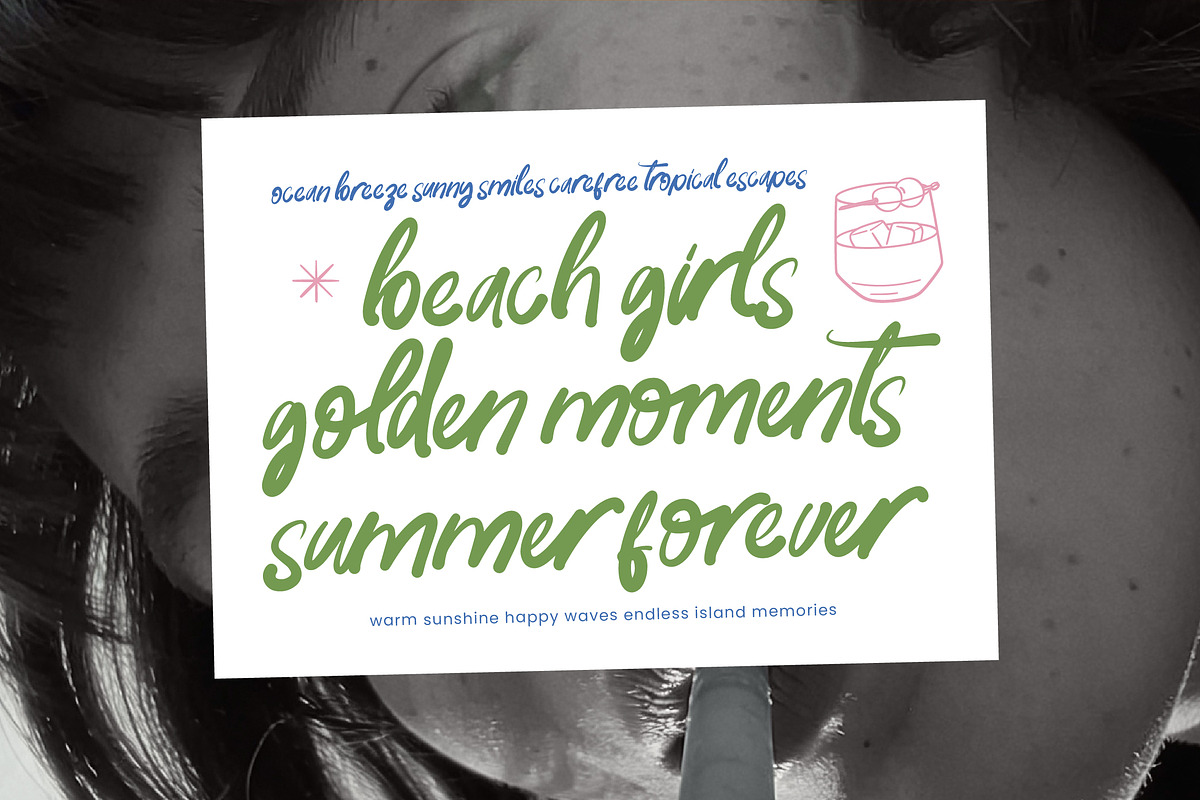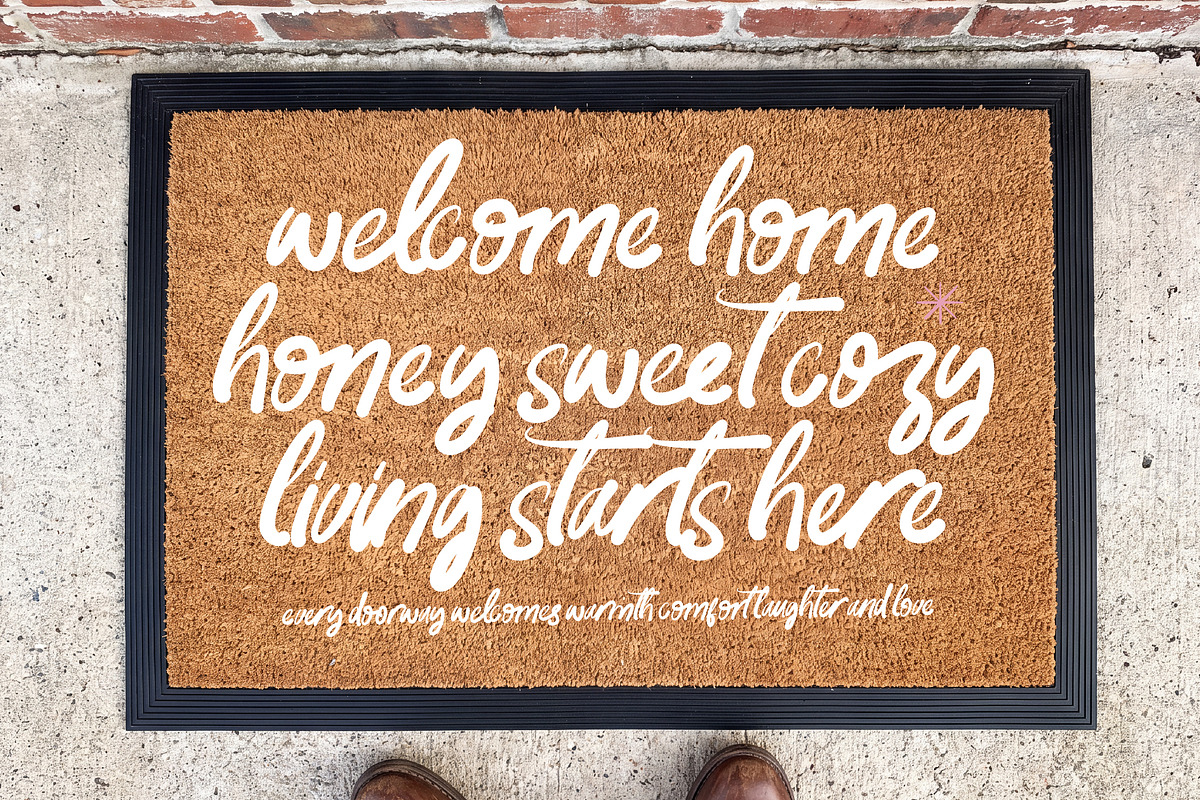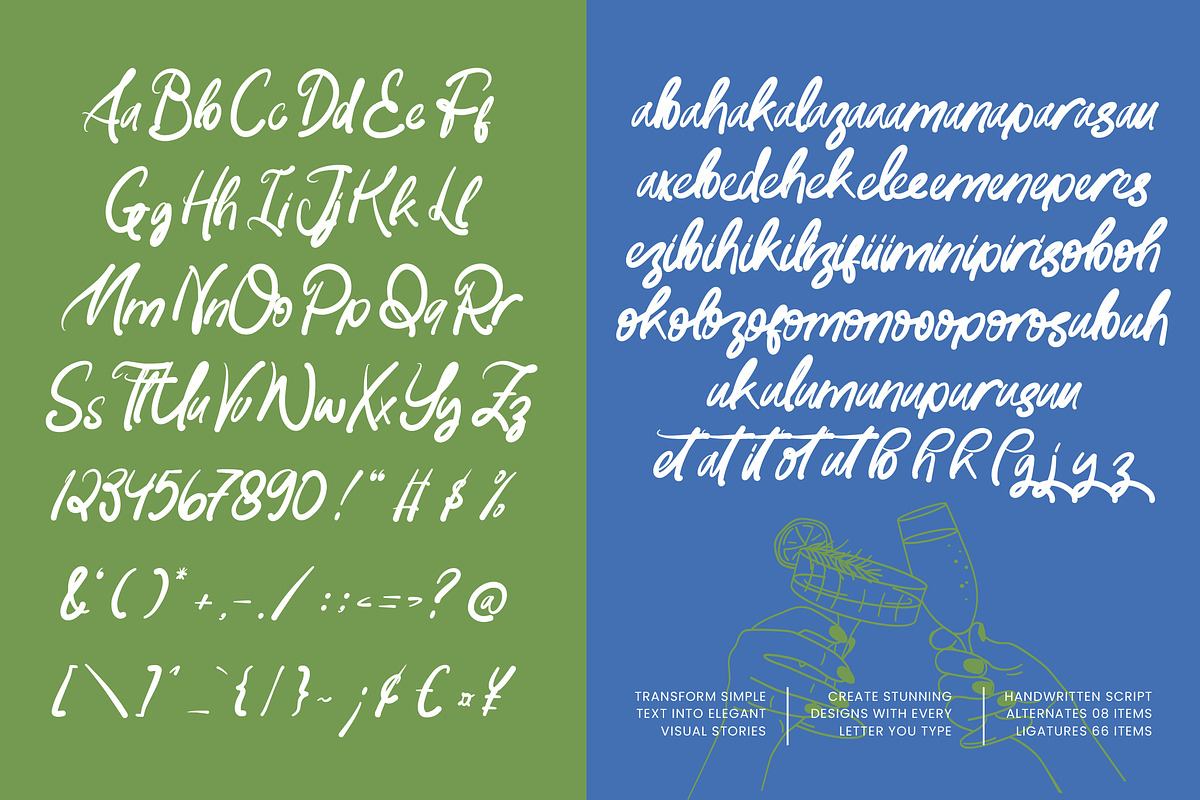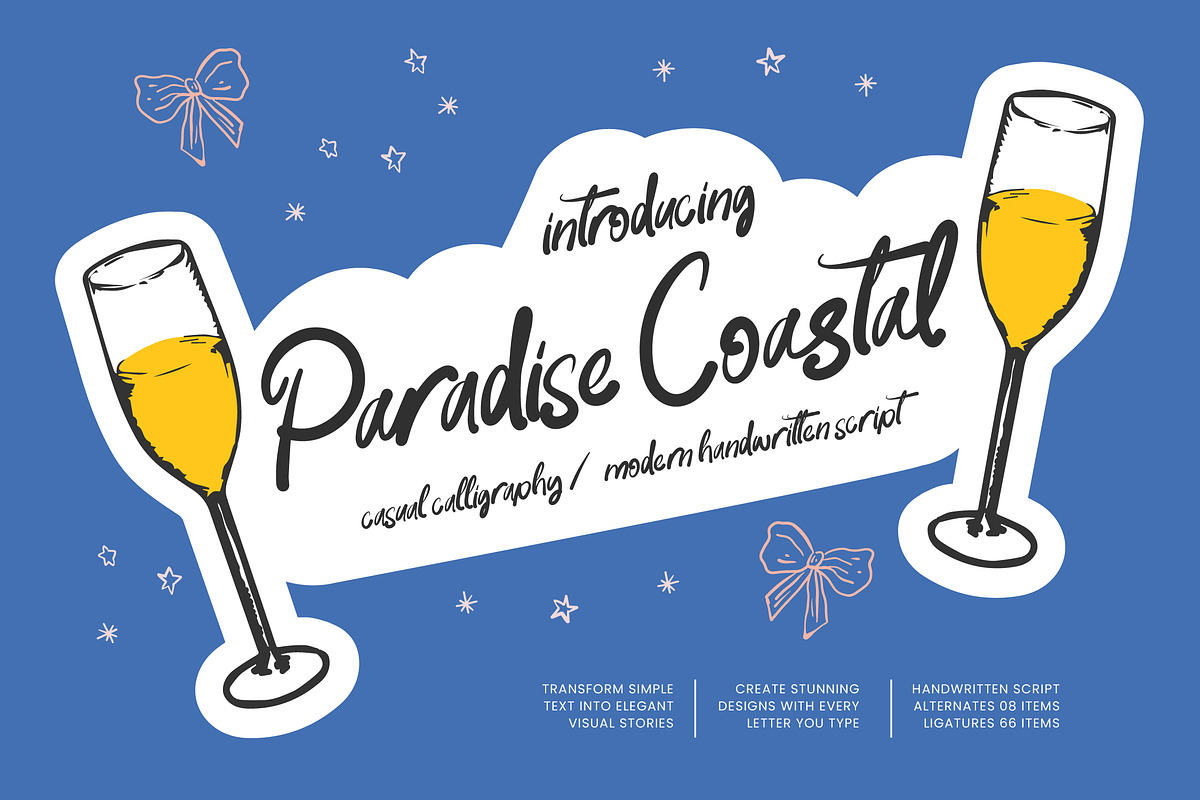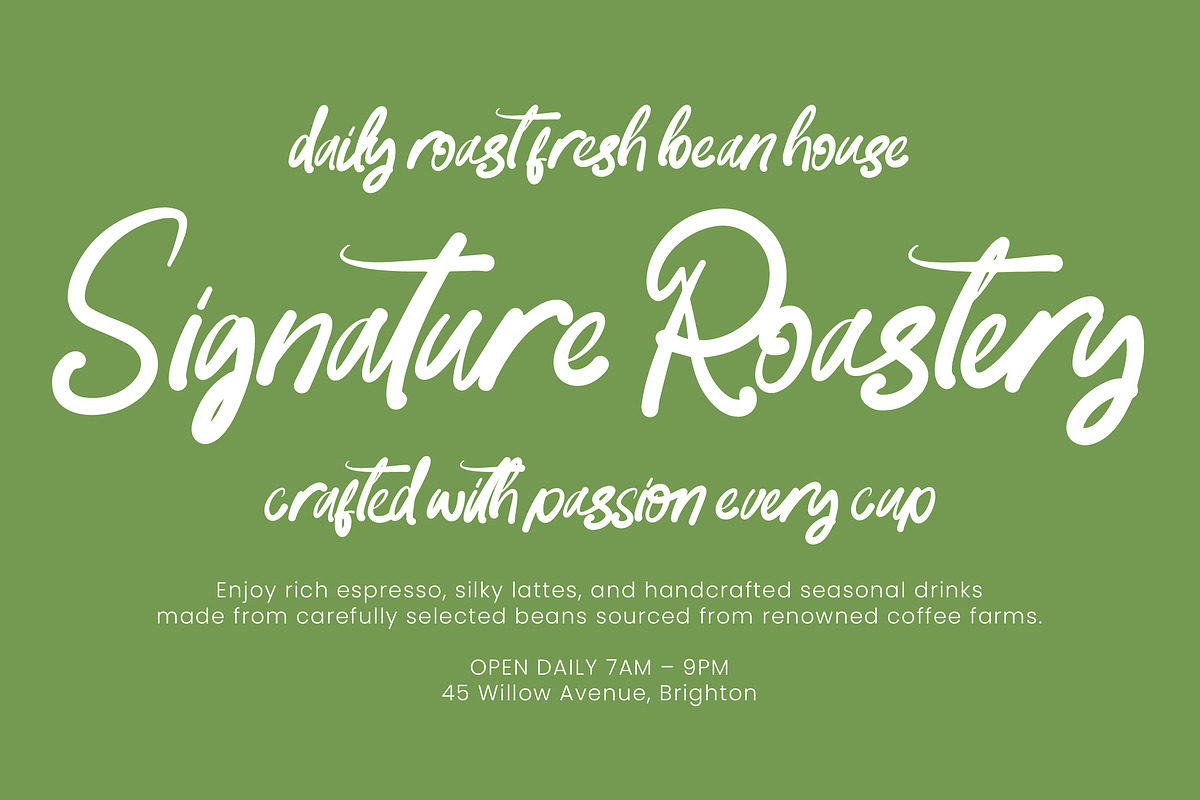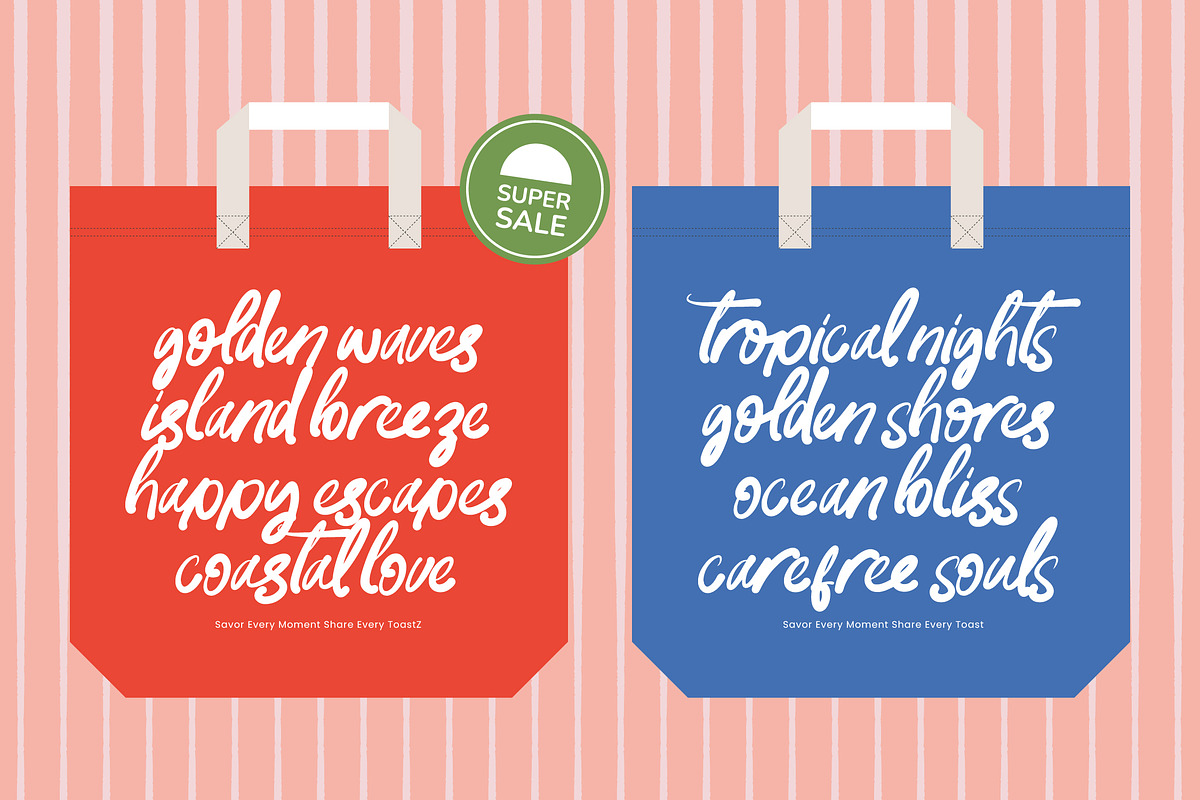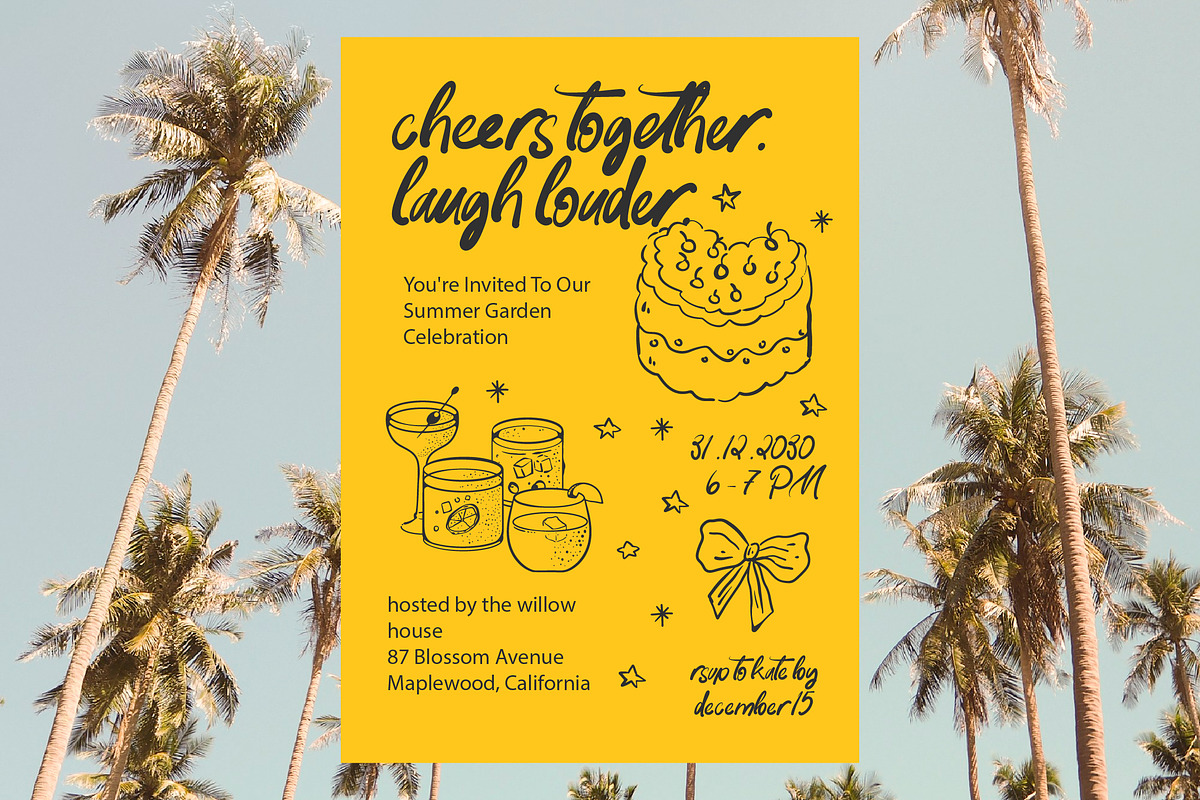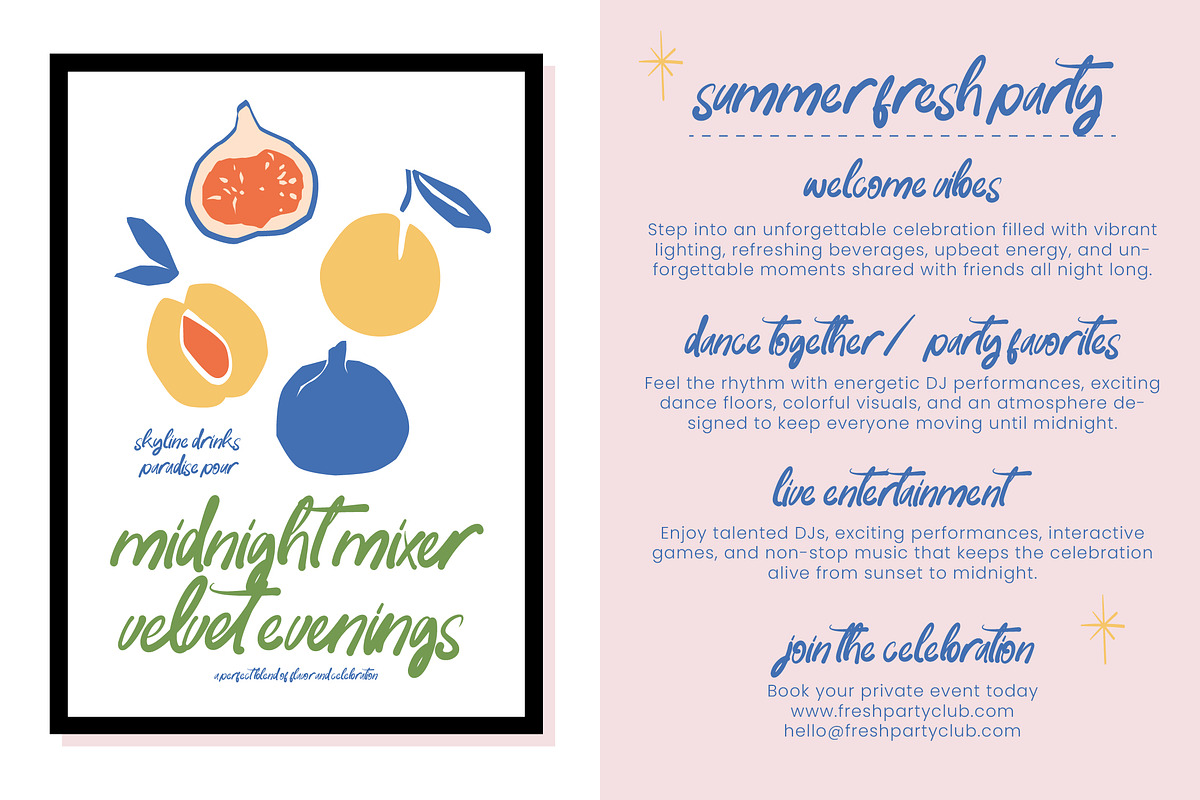
Paradise Coastal Modern Handwritten
Paradise Coastal is a casual calligraphy and modern handwritten script font designed to capture the warmth, freedom, and effortless charm of coastal living. Combining natural handwriting flow with elegant calligraphic movement, this typeface delivers a relaxed yet refined personality perfect for creative branding and lifestyle-focused design projects.
Inspired by beachside escapes, summer memories, handwritten postcards, and carefree moments by the ocean, Paradise Coastal brings an authentic handwritten character that feels personal, inviting, and expressive. Its flowing strokes and organic rhythm create typography that feels naturally beautiful while remaining highly versatile across both print and digital applications.
Whether used for branding, packaging, social media content, invitations, product labels, or creative editorial work, Paradise Coastal helps create designs that feel warm, approachable, and full of personality.
Paradise Coastal combines casual handwritten charm with modern calligraphic elegance, resulting in a script typeface that feels relaxed, stylish, and naturally expressive.
🔡 OpenType Features: 66 Ligatures & 8 Alternates
✏️ Total Glyphs: 406 Characters
🌍 Multilingual Support – Extended Latin character set included